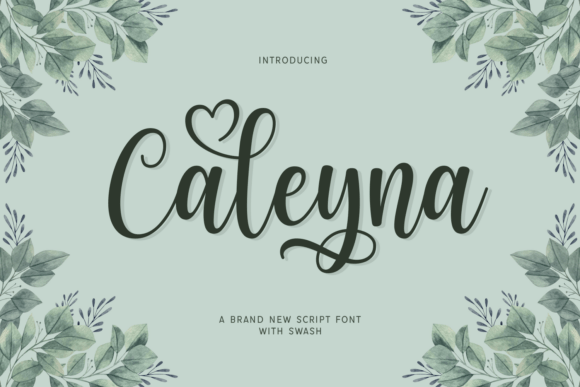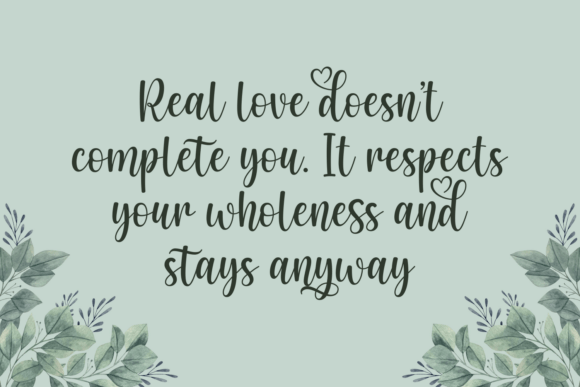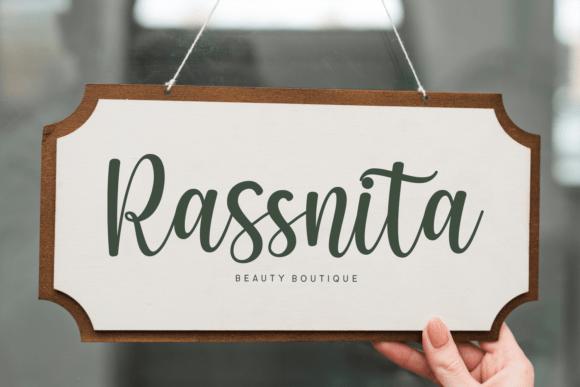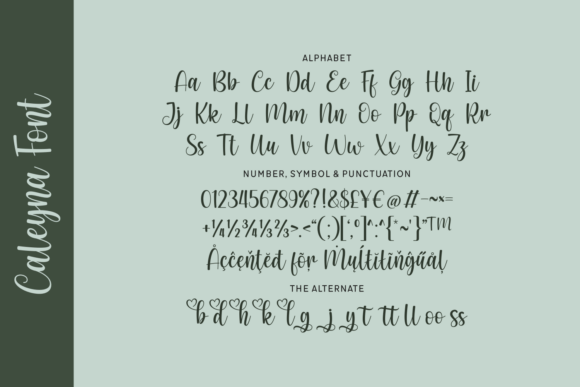
Caleyna Font: Graceful Script for Wedding Invitations & Feminine Branding
About the Caleyna Font
Experience the unique personality of Caleyna Font, a font designed for impact. Caleyna is a graceful script font that enchants with its flowing strokes, heart-shaped swash, and soft hand-lettered style. Designed to bring warmth and elegance to your projects, Caleyna is perfect for wedding invitations, branding for florists or boutiques, romantic quotes, and stationery design. Its balanced curves and playful touches make every word feel handwritten with love—ideal for adding a delicate, feminine flair to your creations.
Caleyna’s gentle curves and delicate swashes are best suited for projects requiring a touch of romantic elegance. It excels in headlines, short text blocks, and logos where its handcrafted charm can shine. Use it sparingly in branding materials, wedding invitations, or short quotes for maximum impact. Avoid using it for body text or UI elements; its intricate details can become illegible at smaller sizes.
For effective pairings, consider a clean sans-serif like Lato or Open Sans for body copy to provide a strong contrast to Caleyna’s script. A geometric sans-serif, such as Montserrat, will further emphasize Caleyna’s organic flow. Alternatively, a subtle serif like Merriweather can add a touch of classic sophistication, creating a harmonious balance between traditional and modern aesthetics.
Caleyna’s personality is undeniably feminine and romantic, yet approachable and friendly. Its soft forms and delicate swashes convey warmth and intimacy, making it ideal for brands focusing on luxury, beauty, or handcrafted goods.
Caleyna Font Usage Examples
Caleyna Font Example